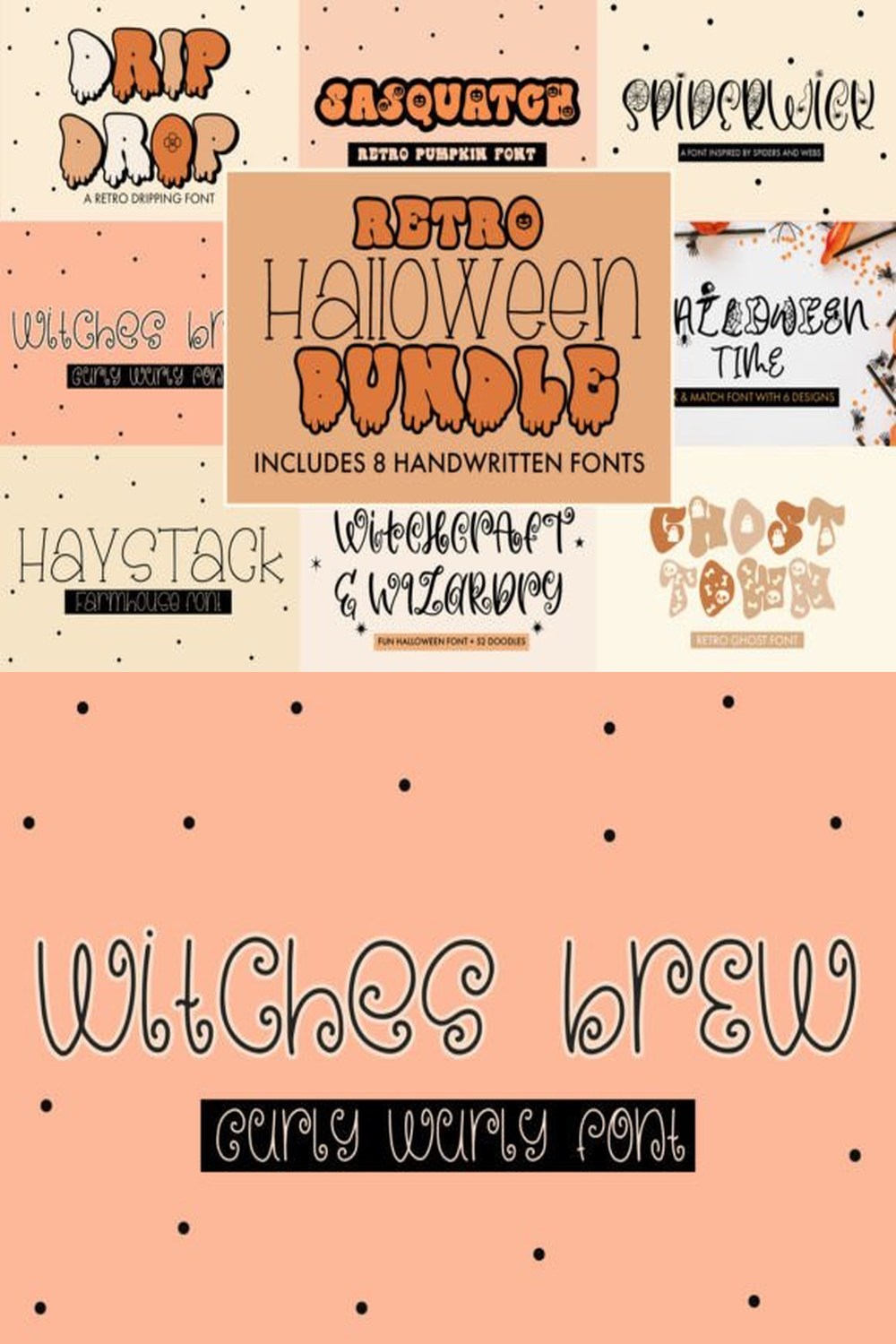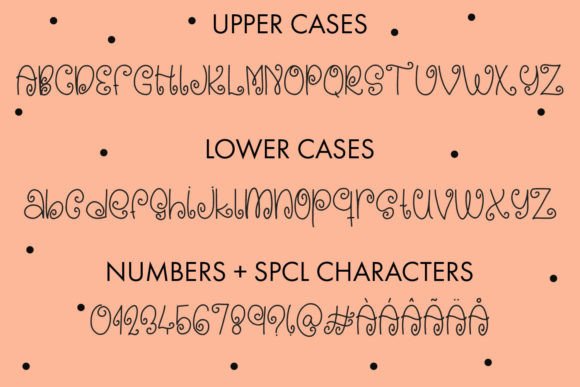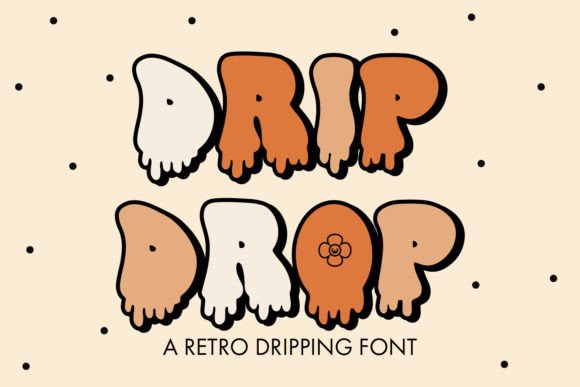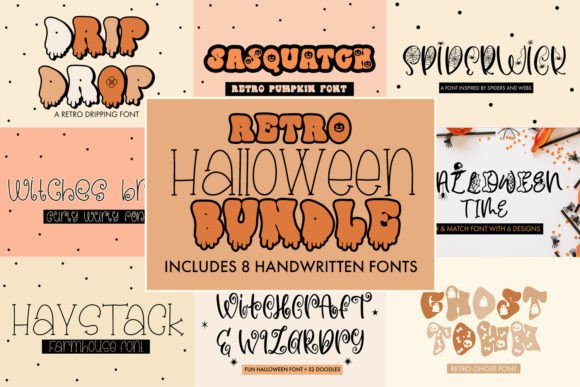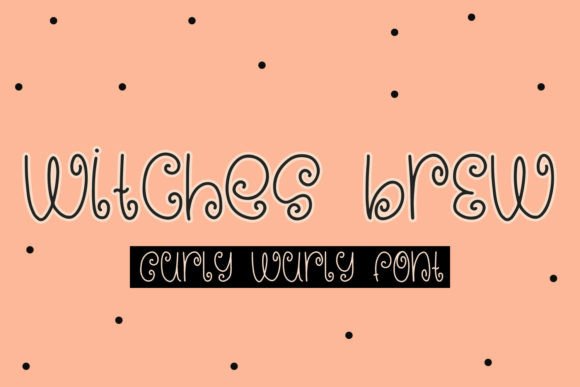
Retro Halloween Bundle Font
About the Retro Halloween Bundle Font
Crafted with precision, the Retro Halloween Bundle Font is ready to bring your ideas to life. Unleash the Spooky Charm! Embrace the Halloween spirit with our bewitching font bundle! Discover a ghoulishly delightful collection featuring retro Halloween fonts, quirky and playful lettering, spine-tingling spider-themed fonts, and chillingly mesmerizing dripping styles. Perfect for haunted invitations, eerie party decorations, and ghostly designs. Get ready to cast a spell on your projects!